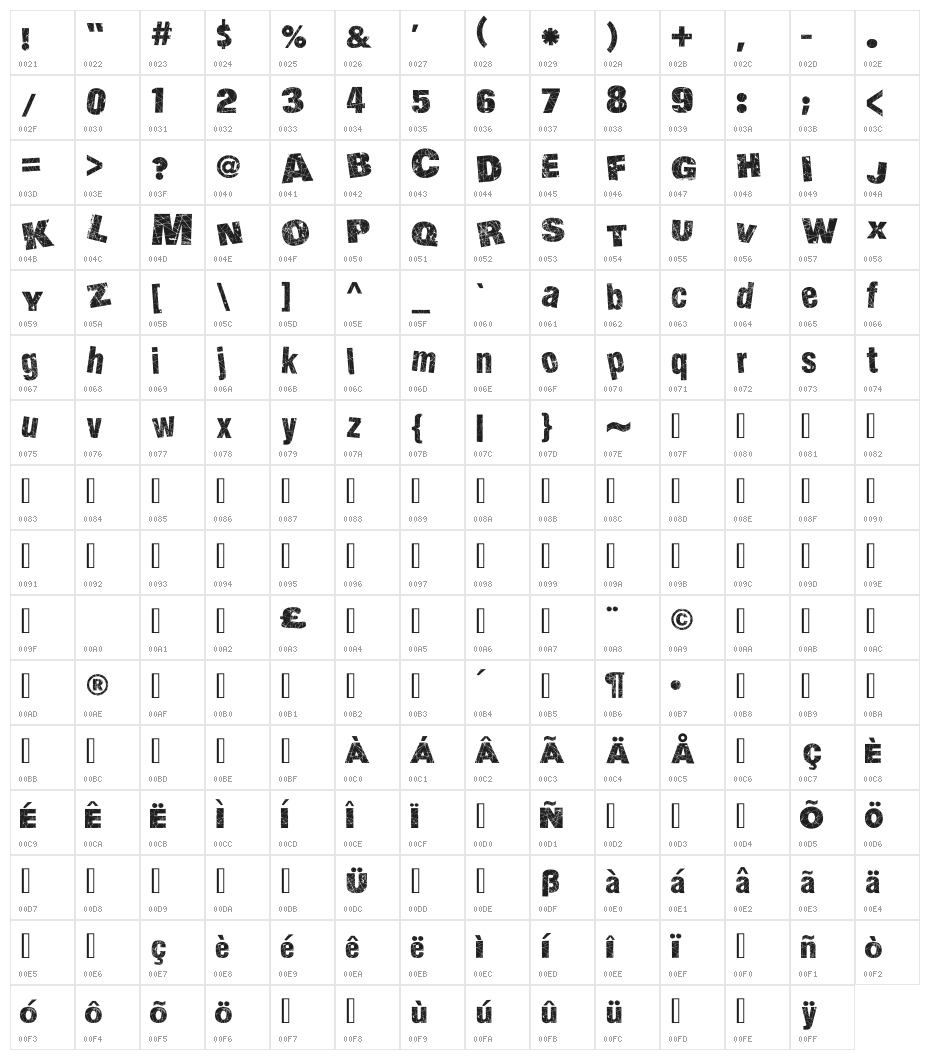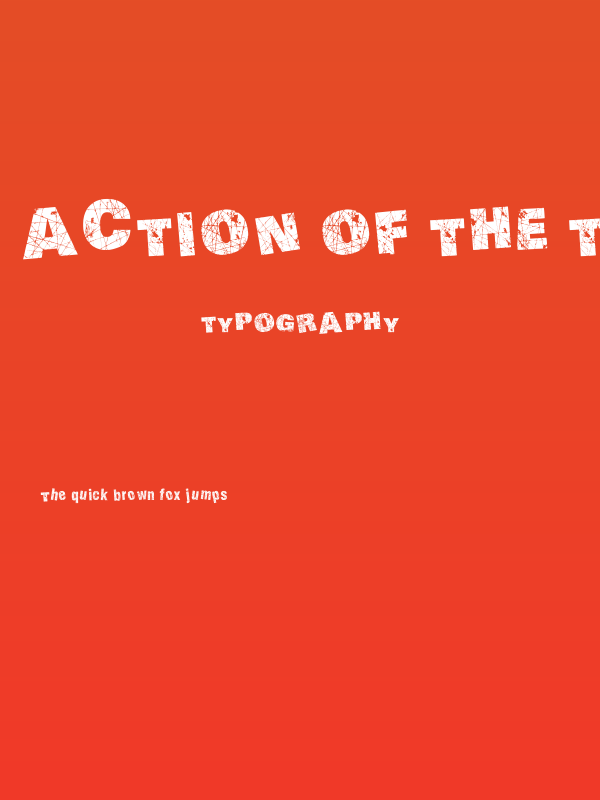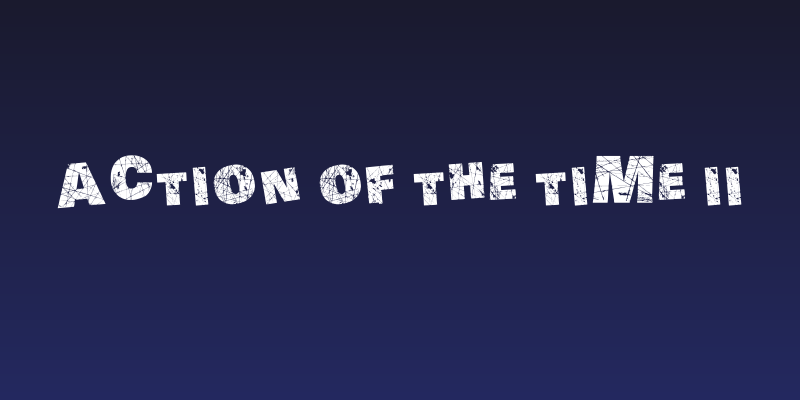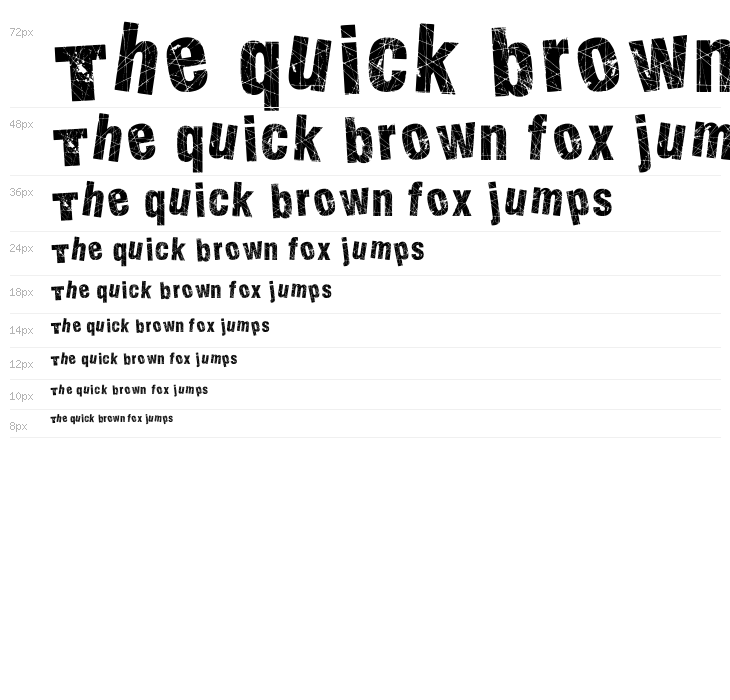
Action of the Time II Font
Action of the Time II Description
This font features a bold, distressed style with a cracked texture that gives it a rugged, edgy appearance. The letters are uppercase and lowercase, with numbers and a variety of special characters included. Each character appears as if it has been shattered or fractured, creating a dynamic and visually striking effect. The font's unique design makes it stand out, perfect for projects that require a strong, impactful visual statement. The irregularities in the texture add a sense of movement and energy, making it ideal for creative and unconventional designs.
| Overall Style | Modern, Edgy |
| Proposed Projects | Ideal for posters, album covers, branding for edgy products, or any design needing a bold statement. |